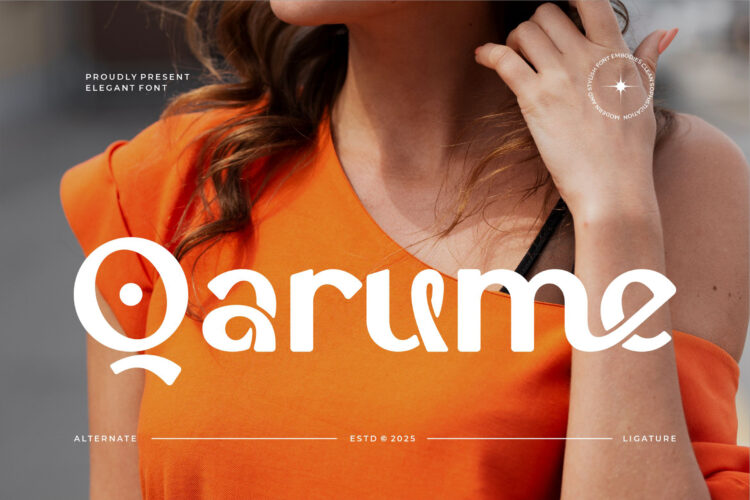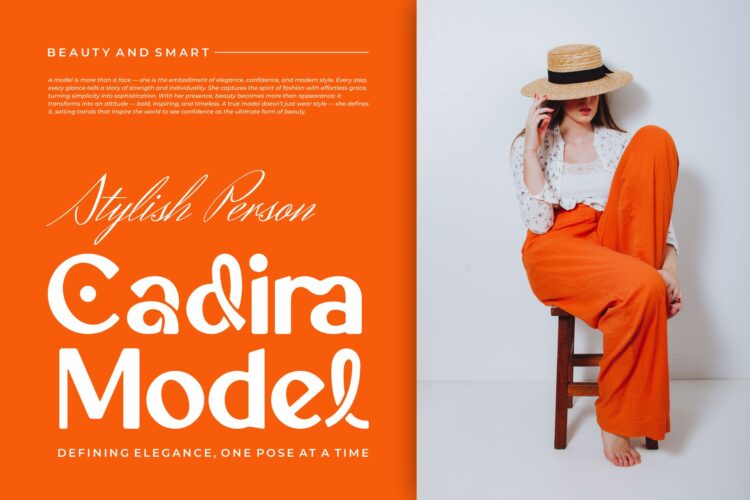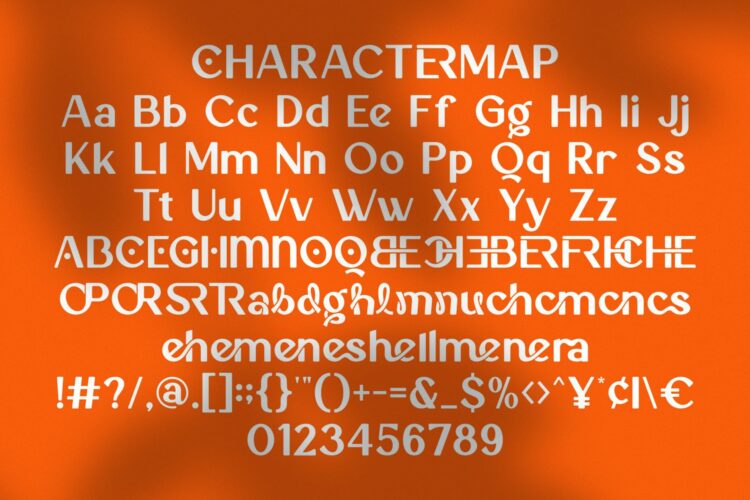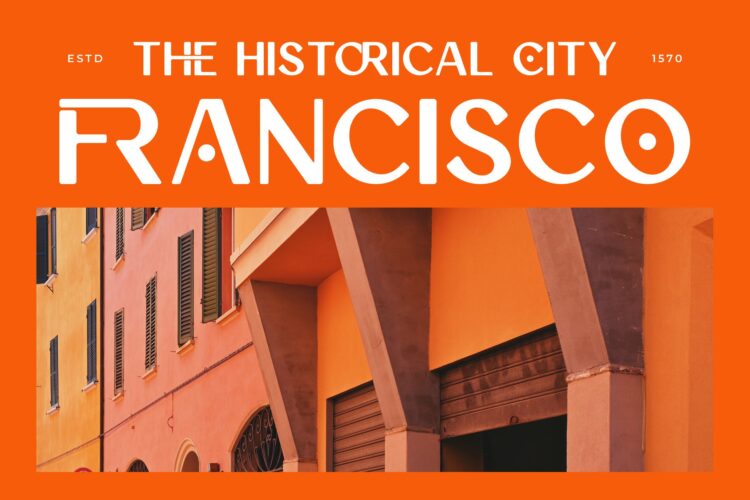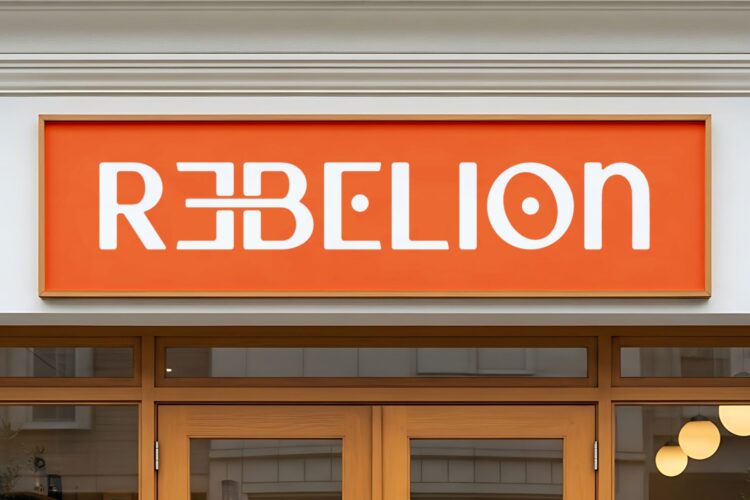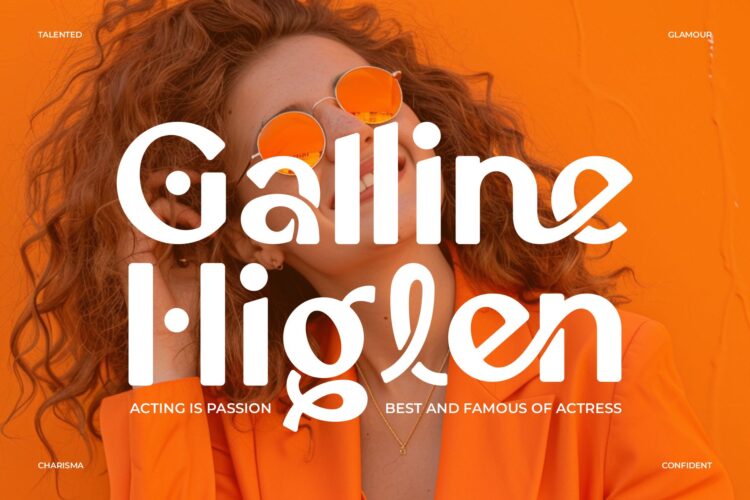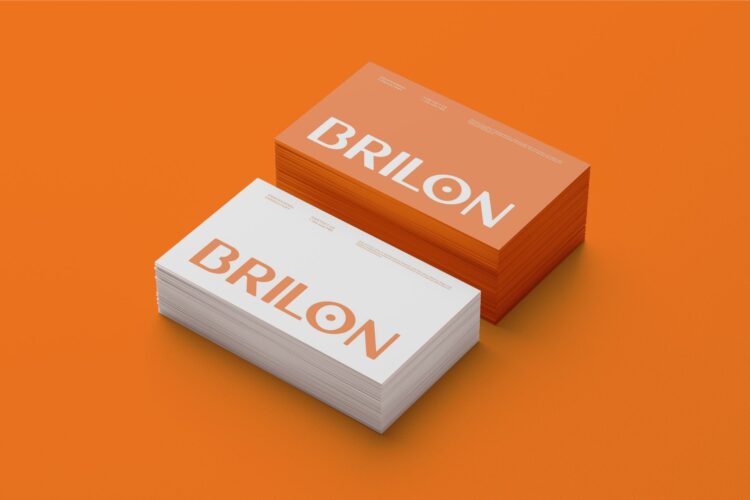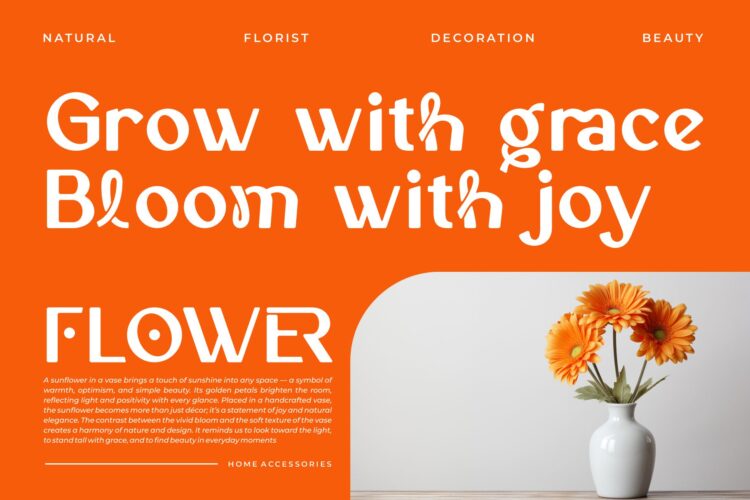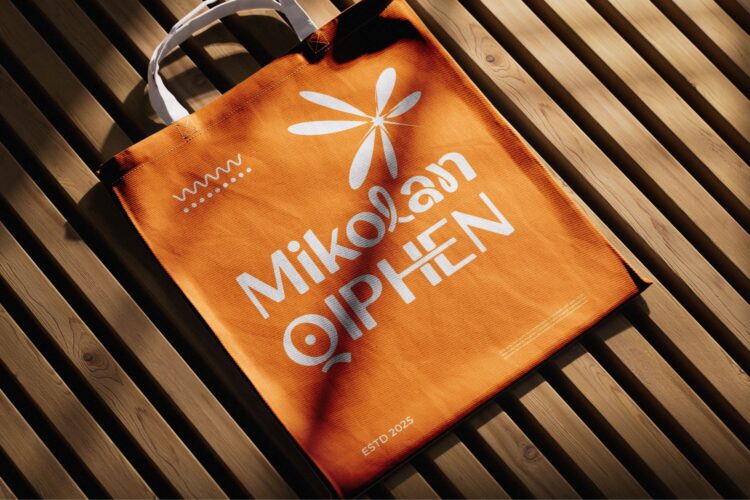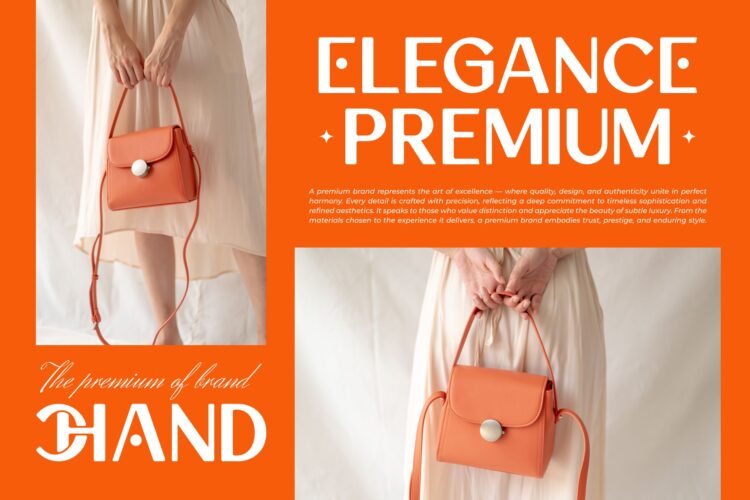
Qarume Sans Serif is a modern and clean font type for all branding and logo designs. This modern and clean Serif font has a beautiful character. This font is suitable for invitation card designs, cool logos, movie titles, movie names, business cards, book titles, brand names, and various other designs. Qarume Sans Serif is a smooth serif font that exudes sophistication and the moment. Its stylish ligatures make this font a perfect partner for any project.